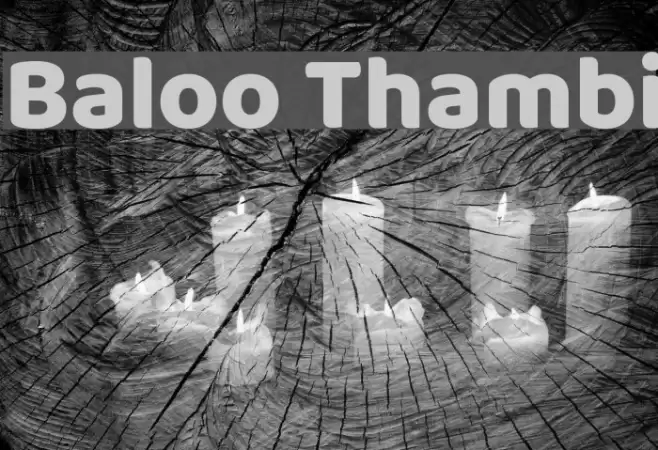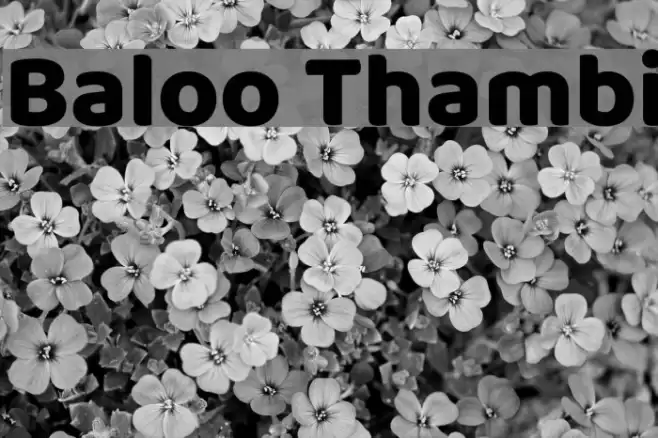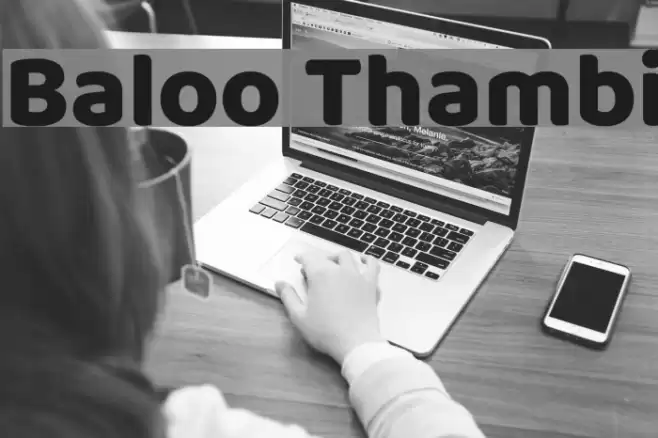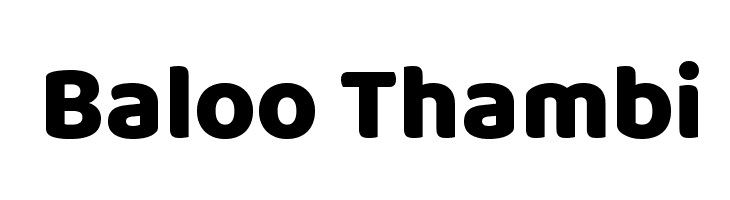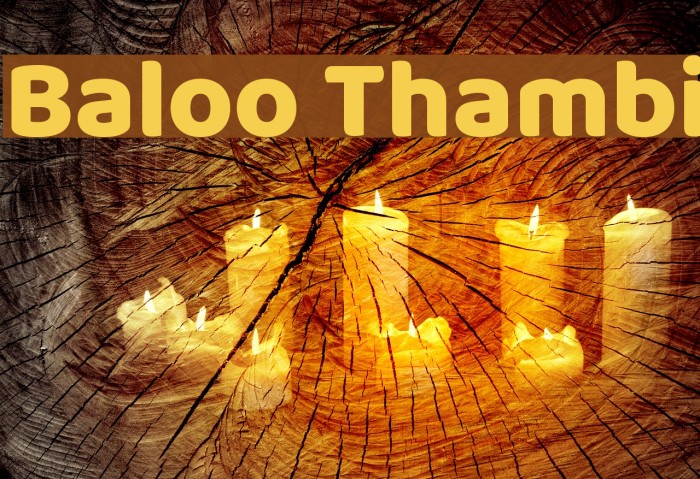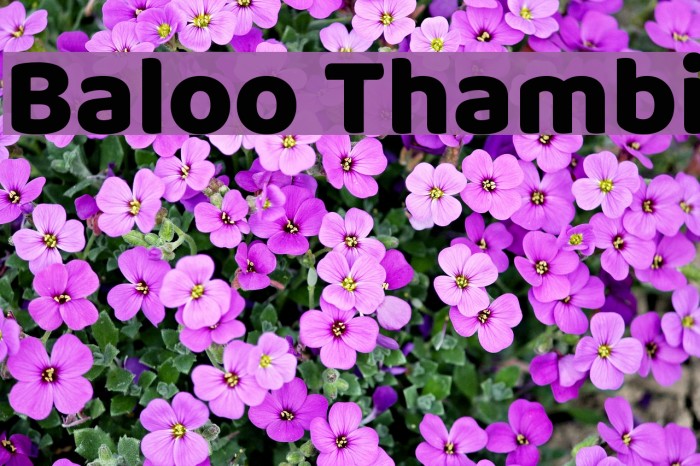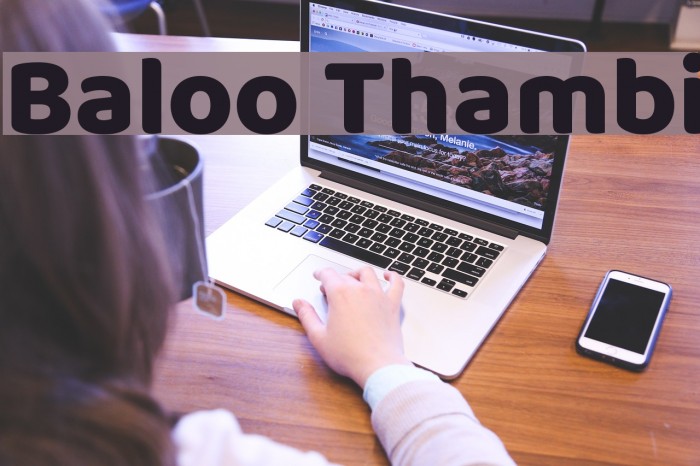
Baloo Thambi Font
Baloo Thambi Description
This font features a playful and rounded design, characterized by its bold and friendly appearance. The letters are thick and have a smooth, uniform stroke width, giving it a modern and approachable feel. The rounded edges and consistent weight make it ideal for creating a welcoming and informal atmosphere. Its simplicity and clarity ensure readability, making it suitable for both digital and print media. The font's design is versatile, allowing it to be used in various contexts where a casual and engaging tone is desired.
A bold, rounded font with a playful and friendly style from Uncategorized fonts.
- Proposed Projects: Ideal for children's books, playful branding, casual invitations, and social media graphics.